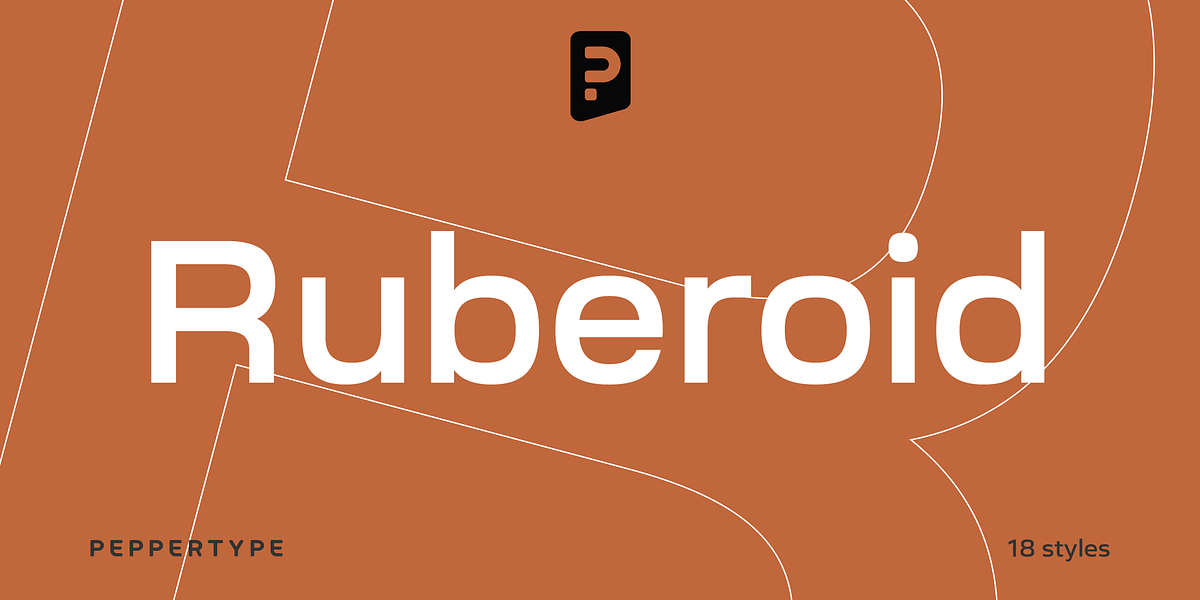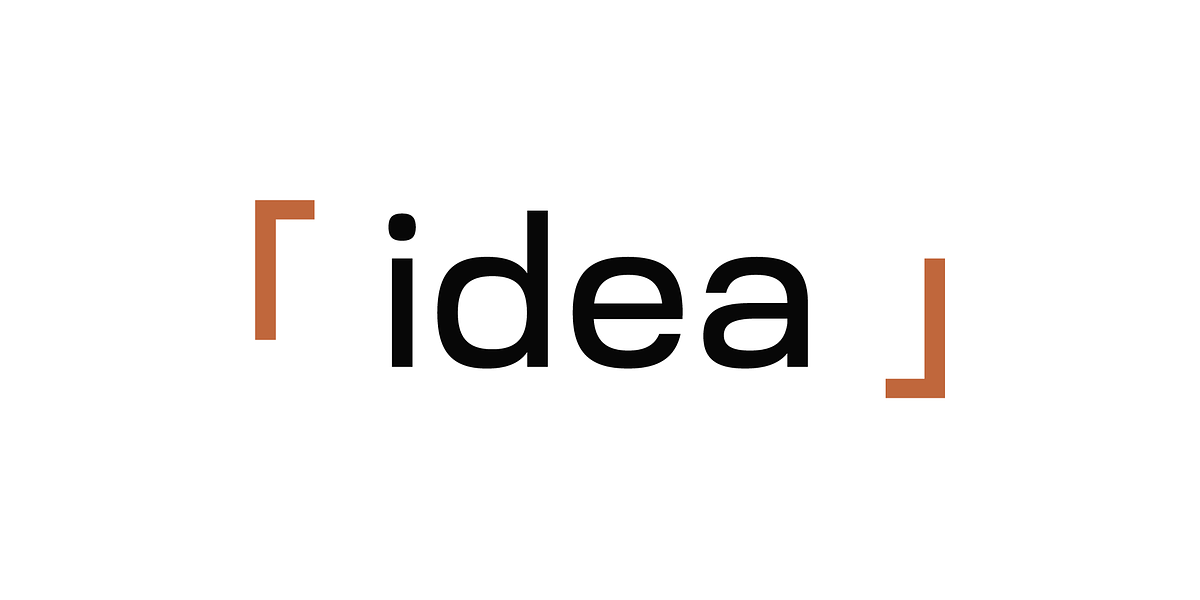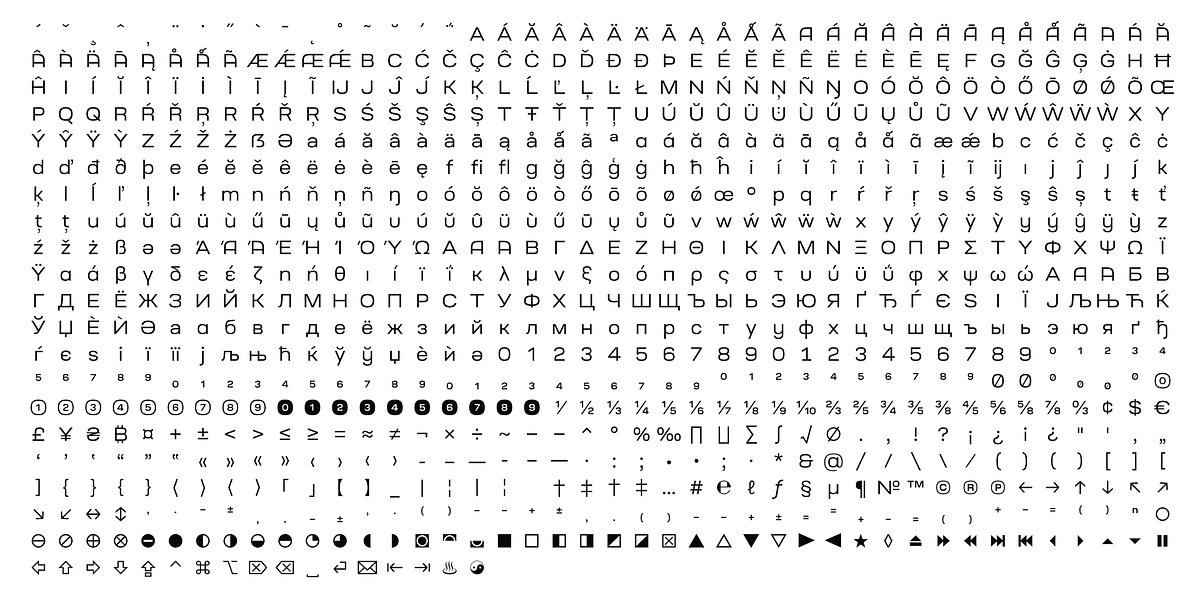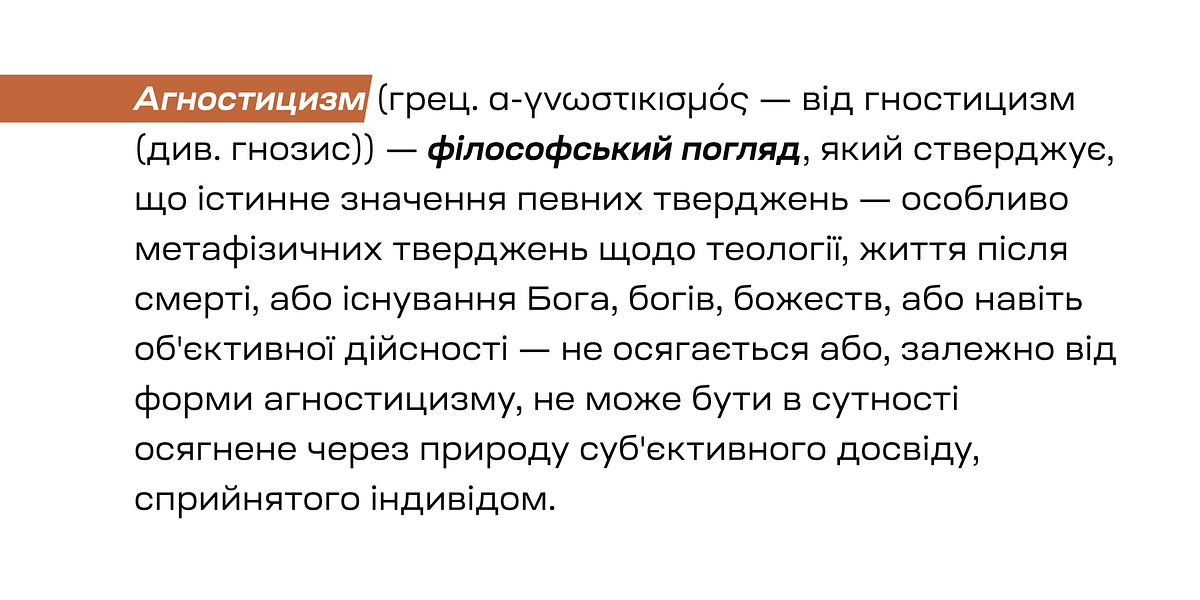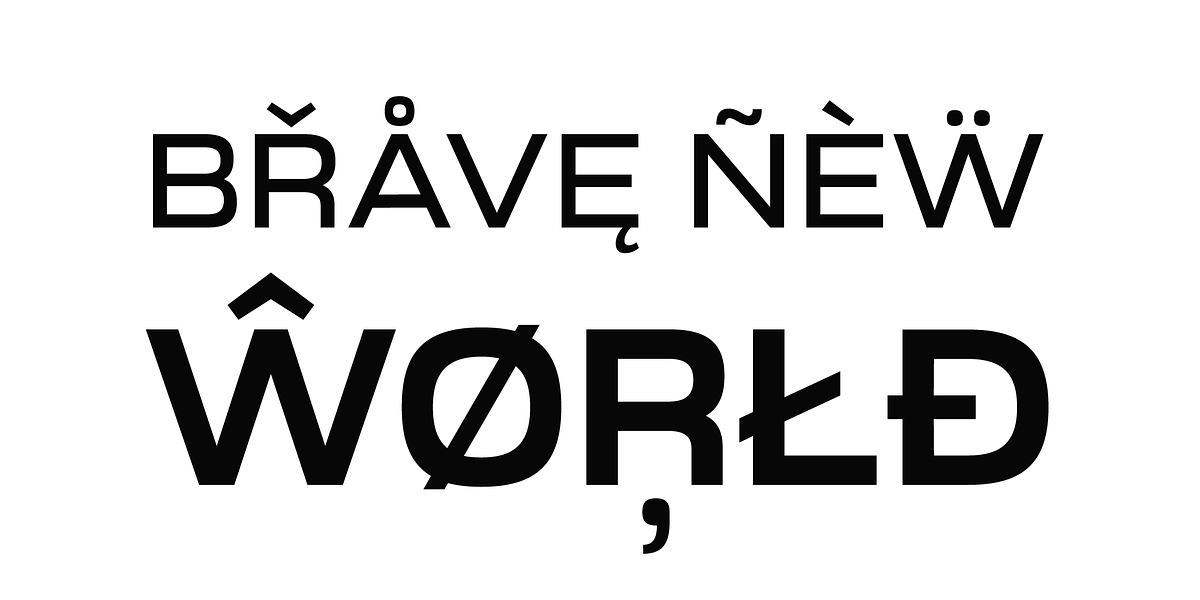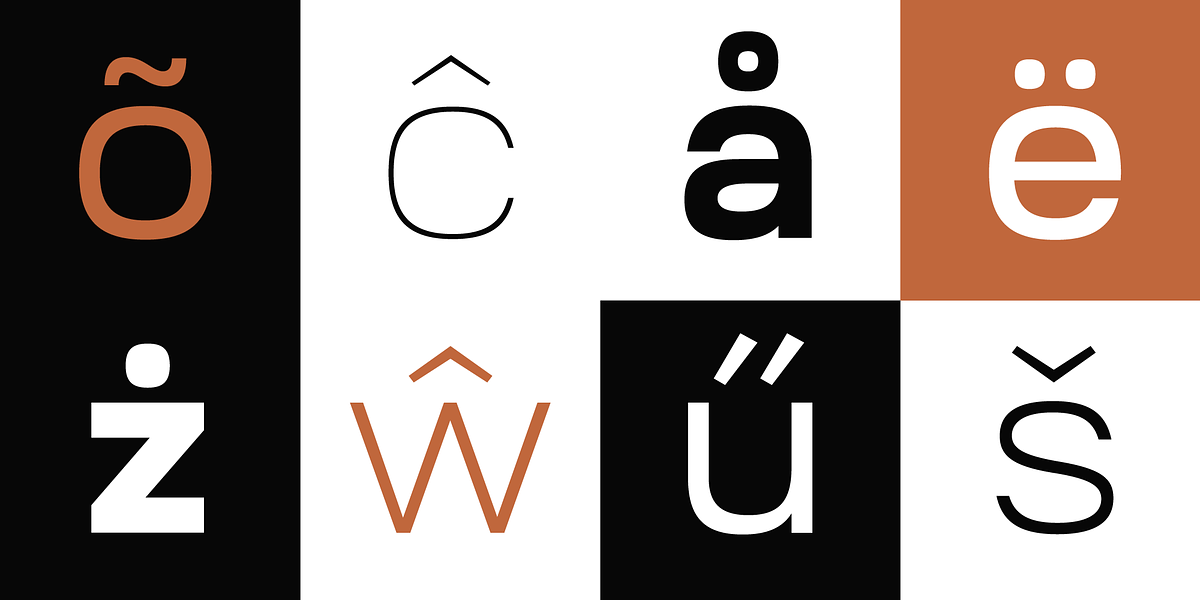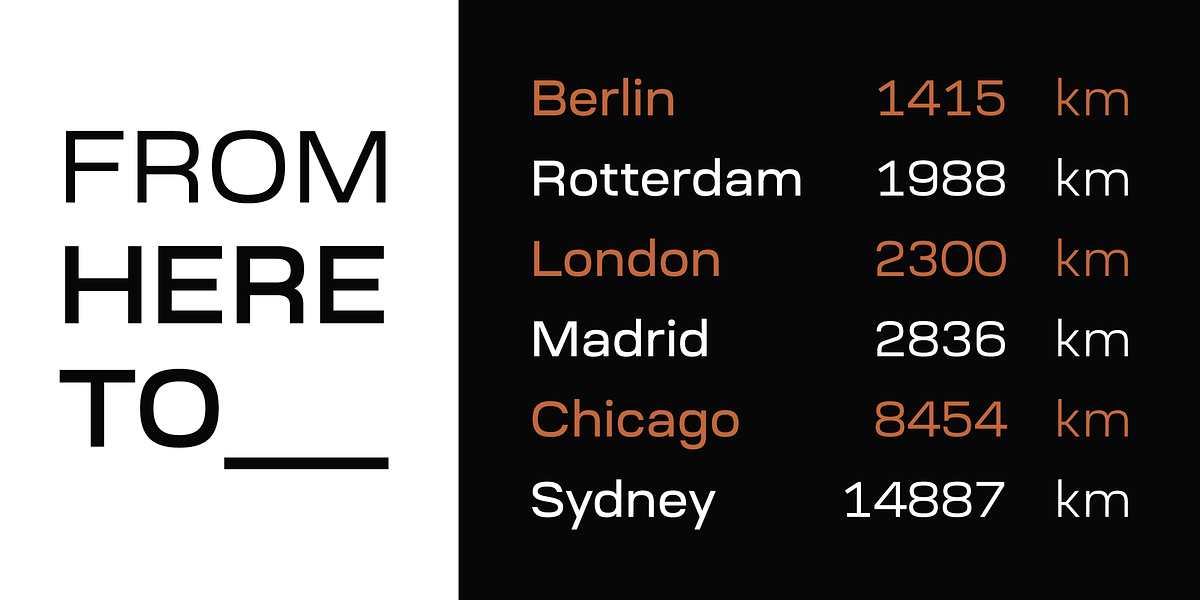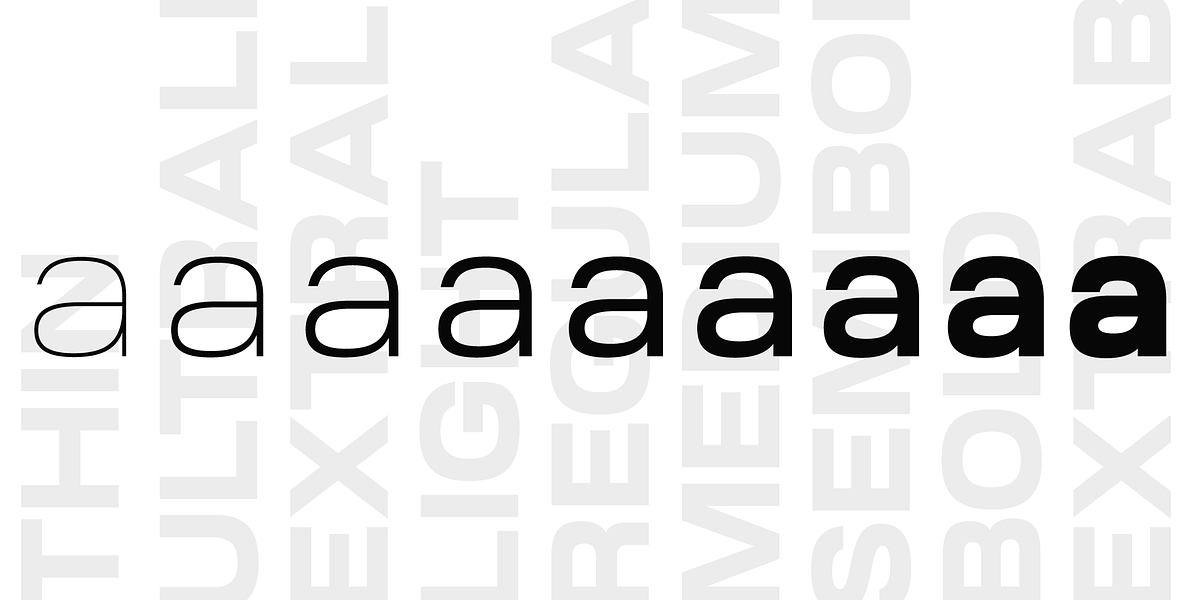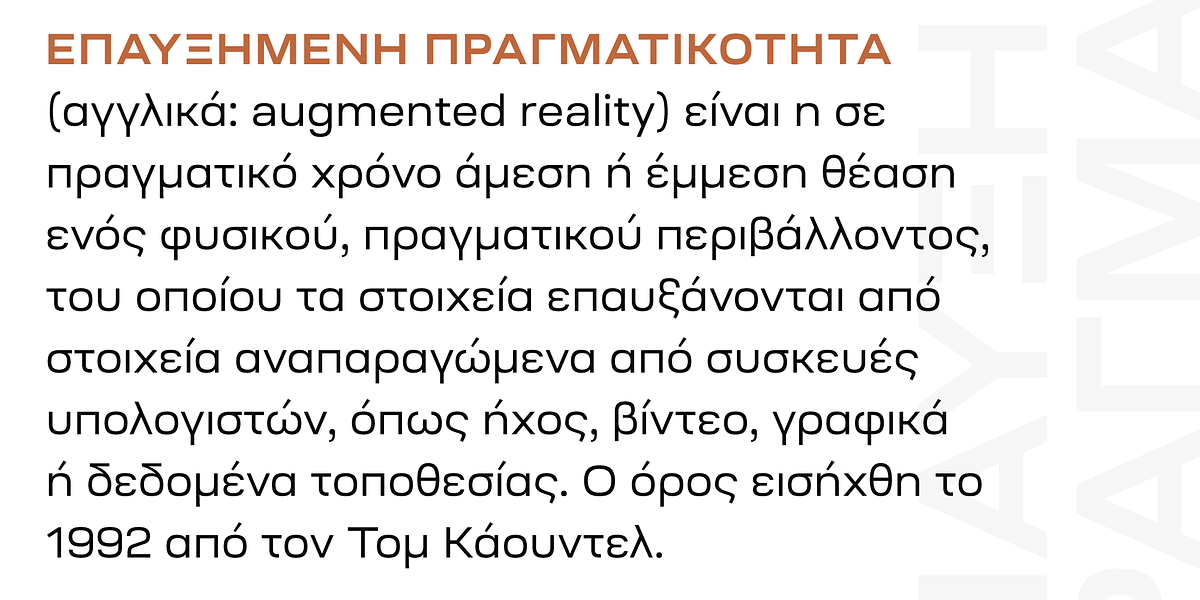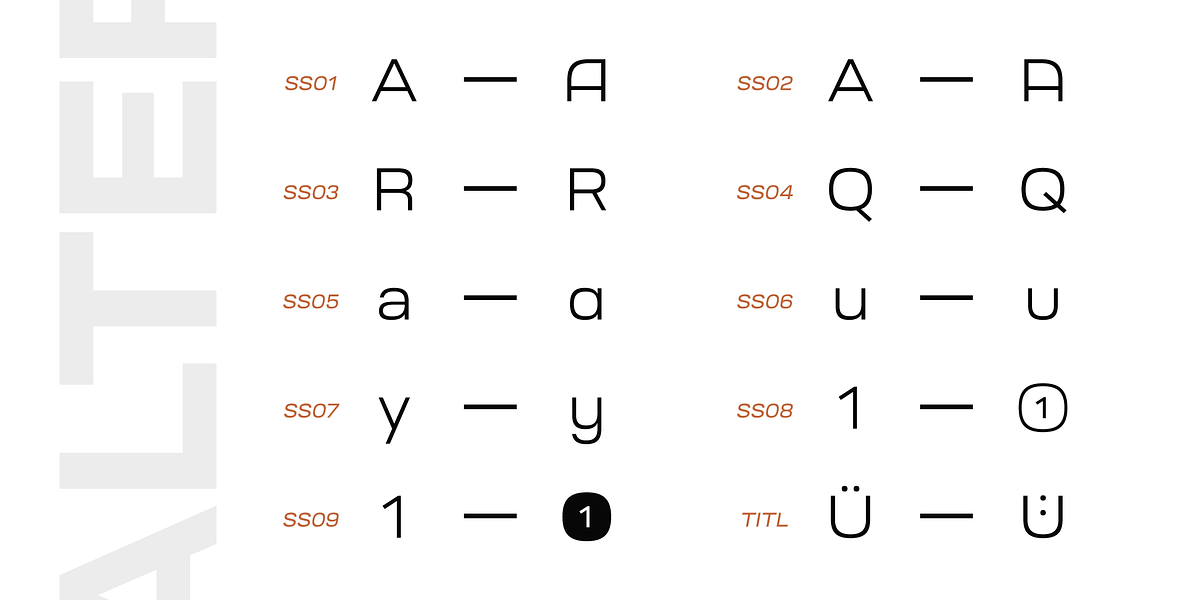
Ruberoid
Ruberoid is a geometric sans-serif font family with a contemporary feel. Its design draws inspiration from Italian typefaces of the 1950s and 1960s but incorporates rounder shapes for a more modern aesthetic. The typeface comes in nine weights with matching oblique styles, making it versatile for various applications. It supports Latin, Greek, and Cyrillic scripts.